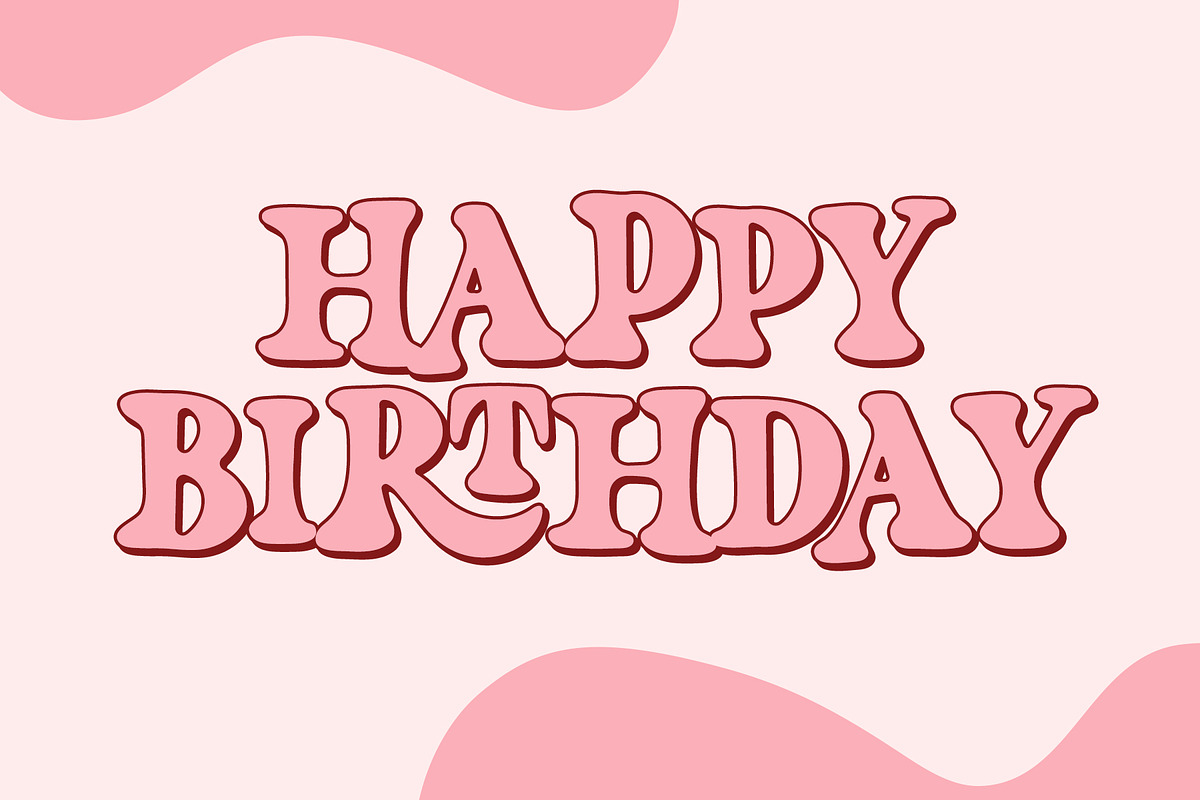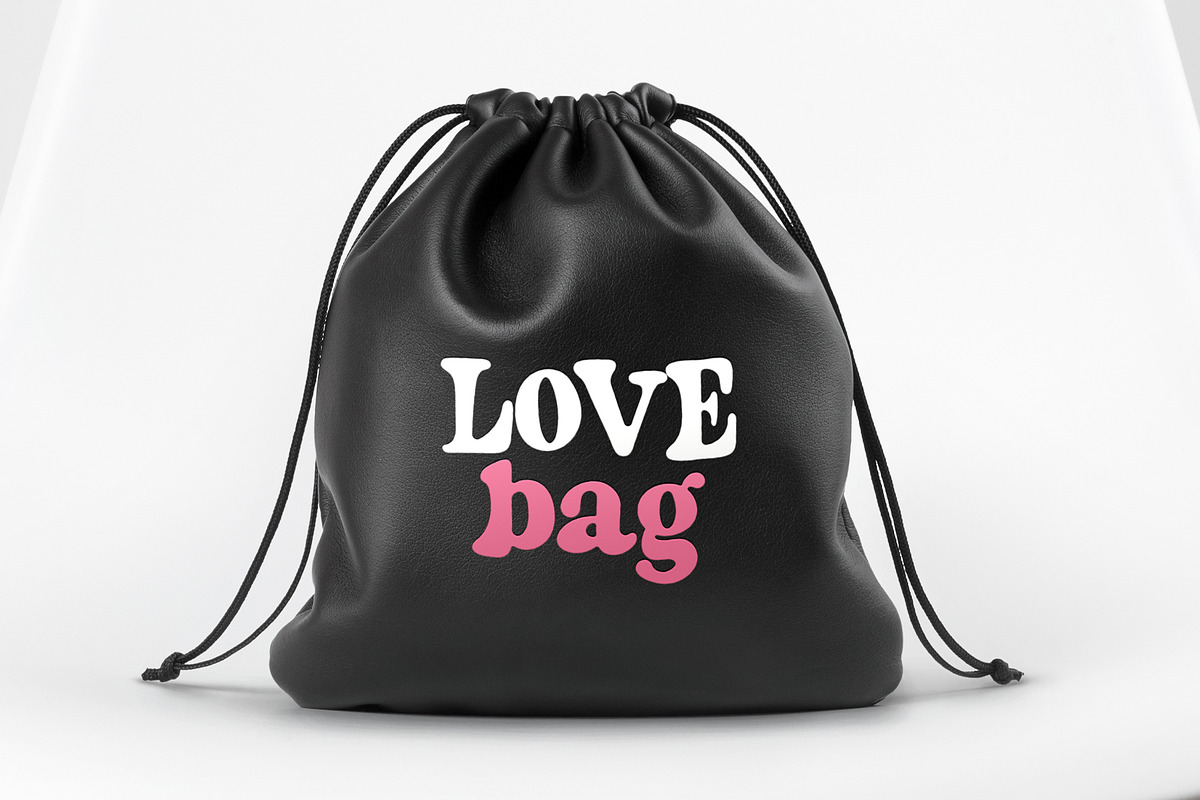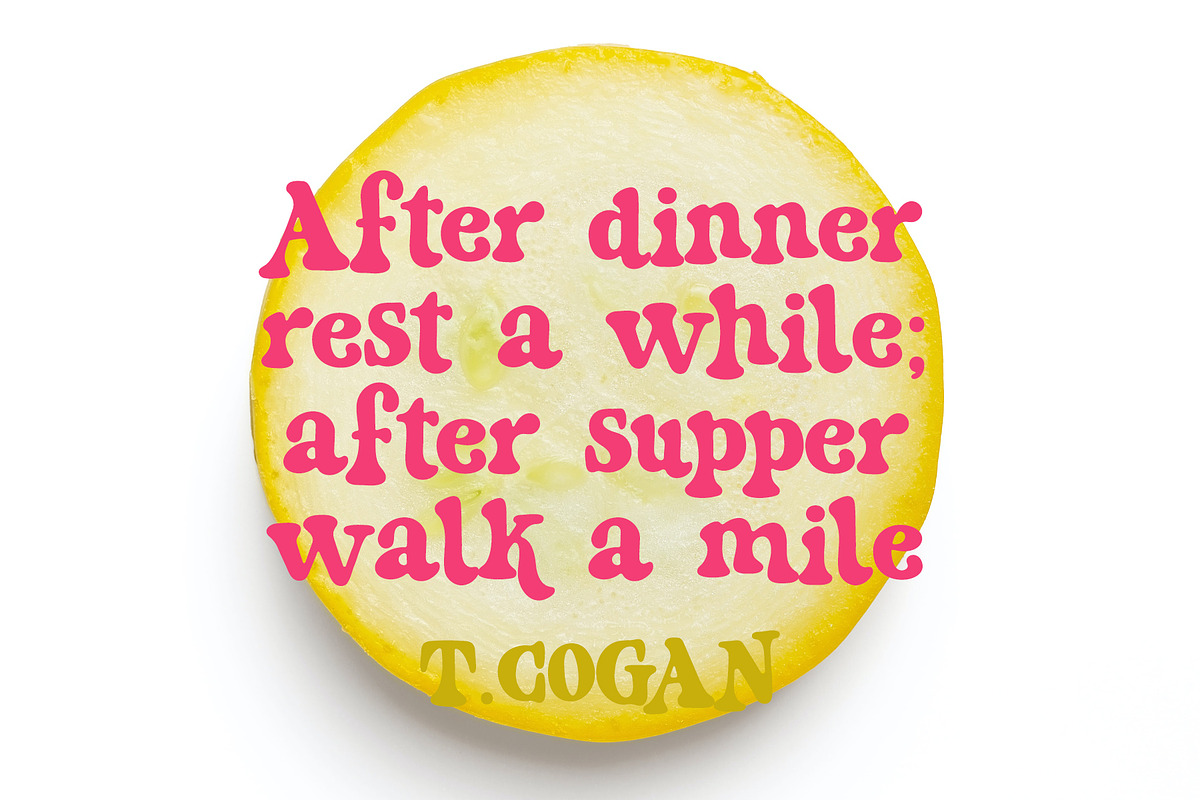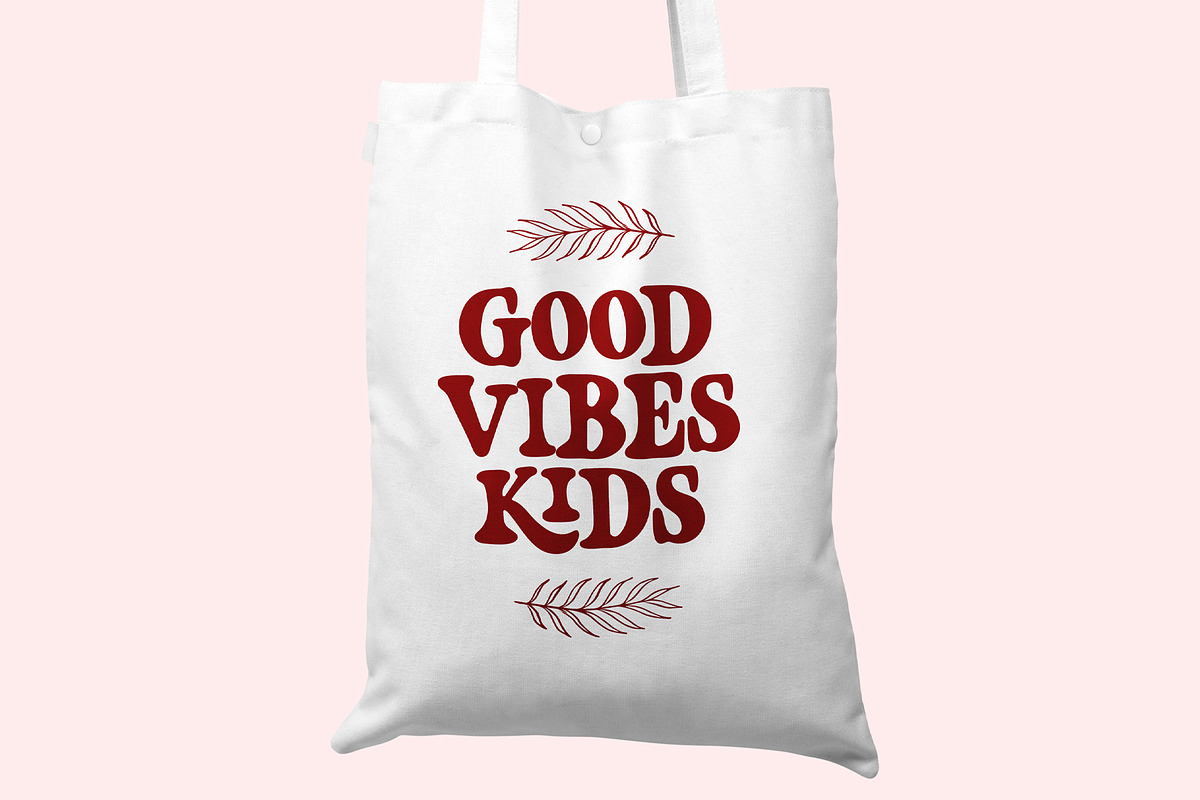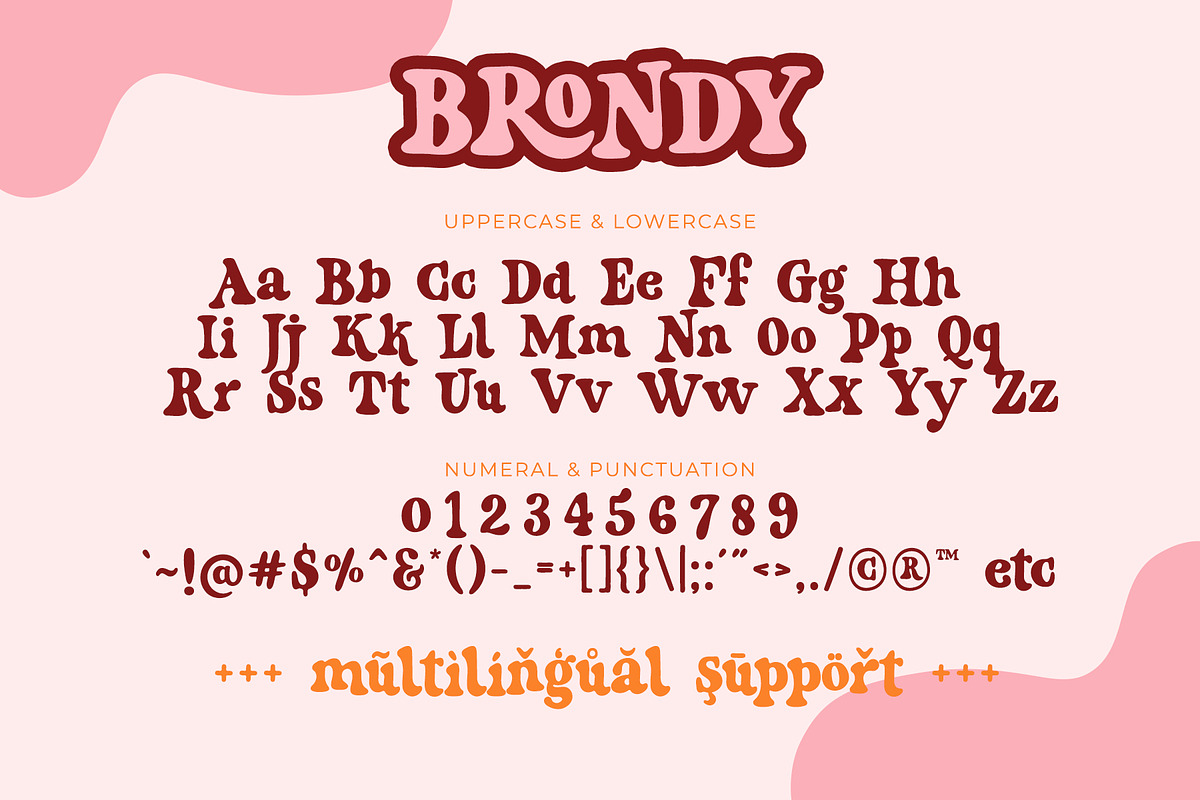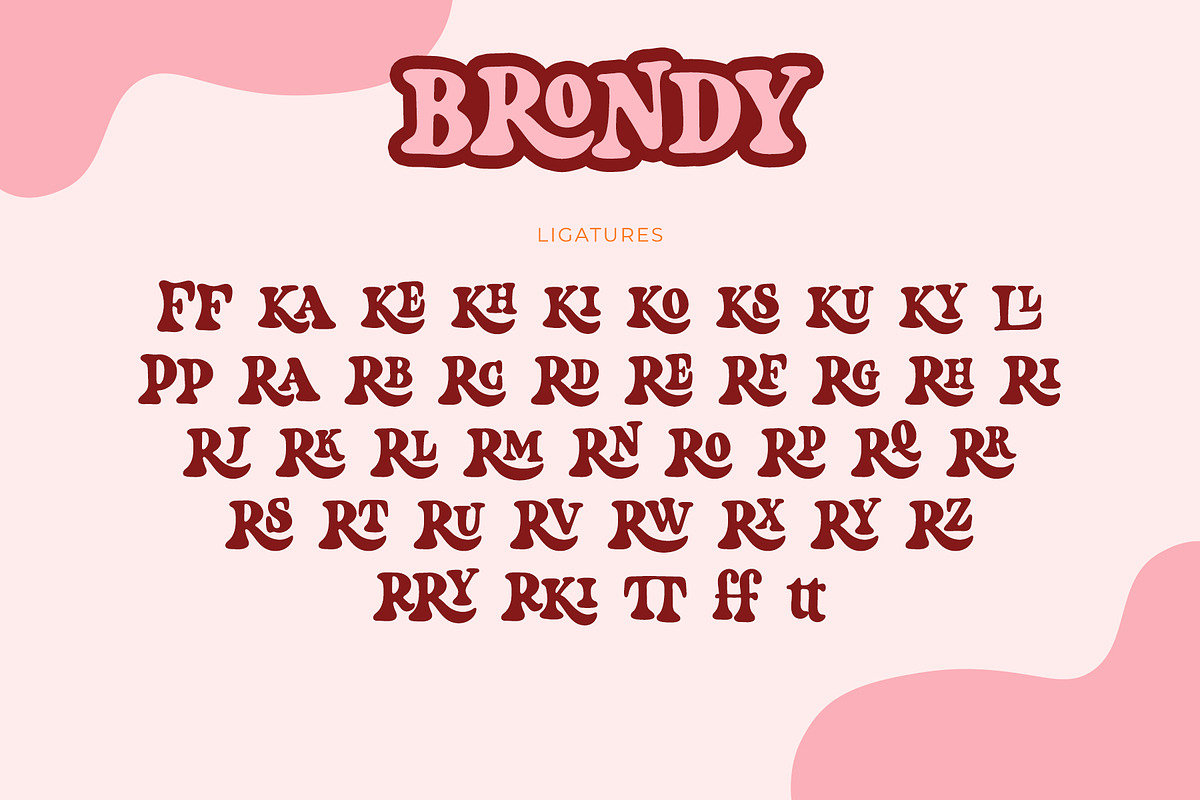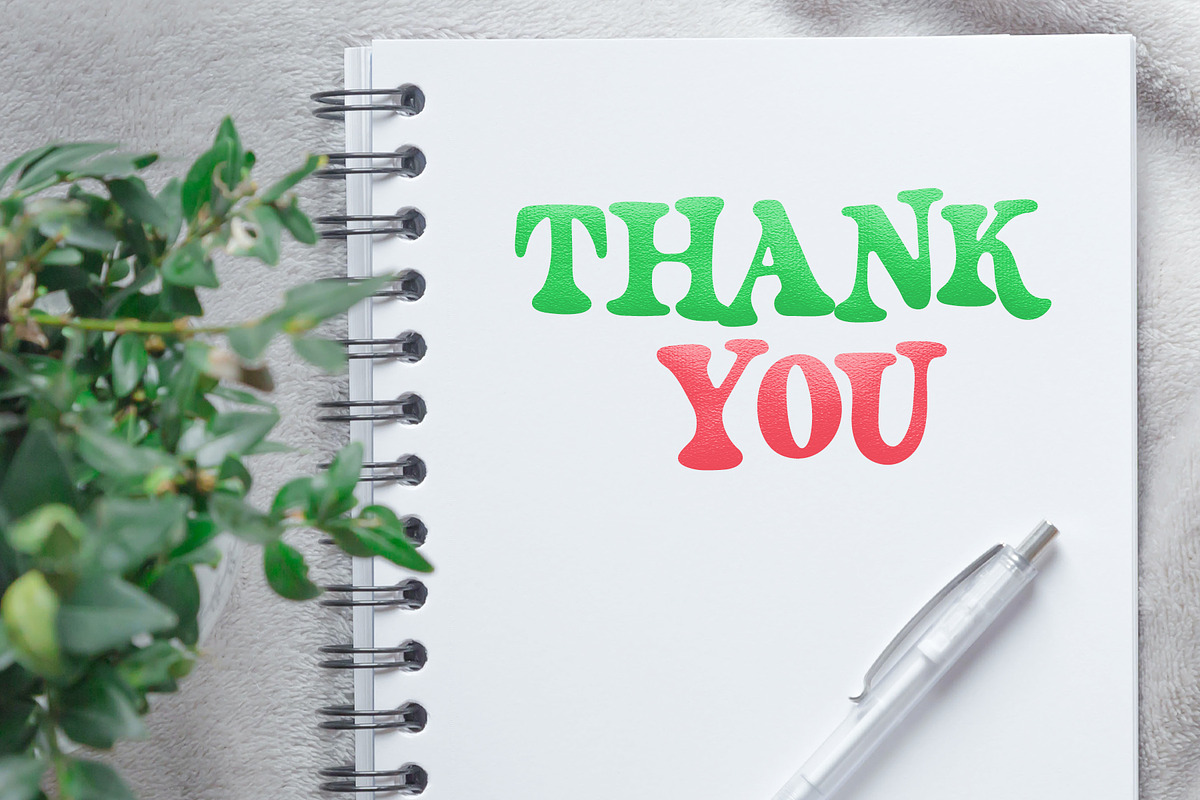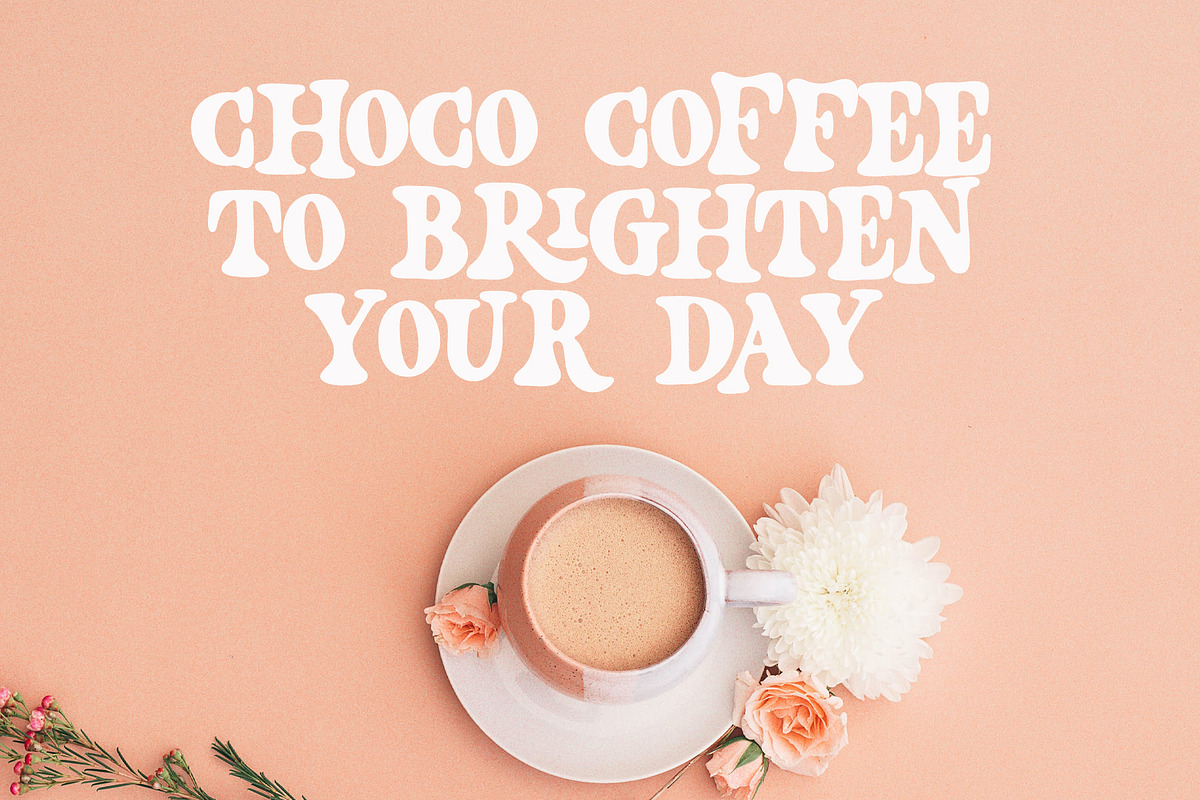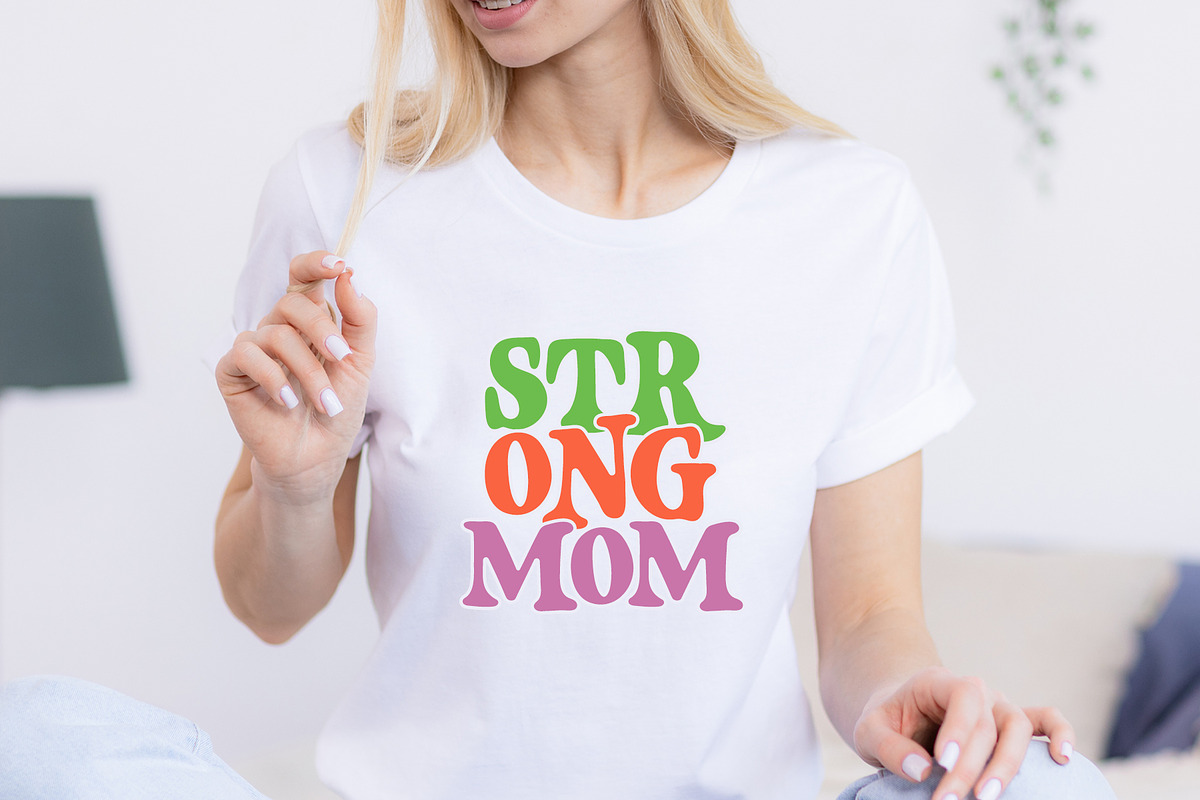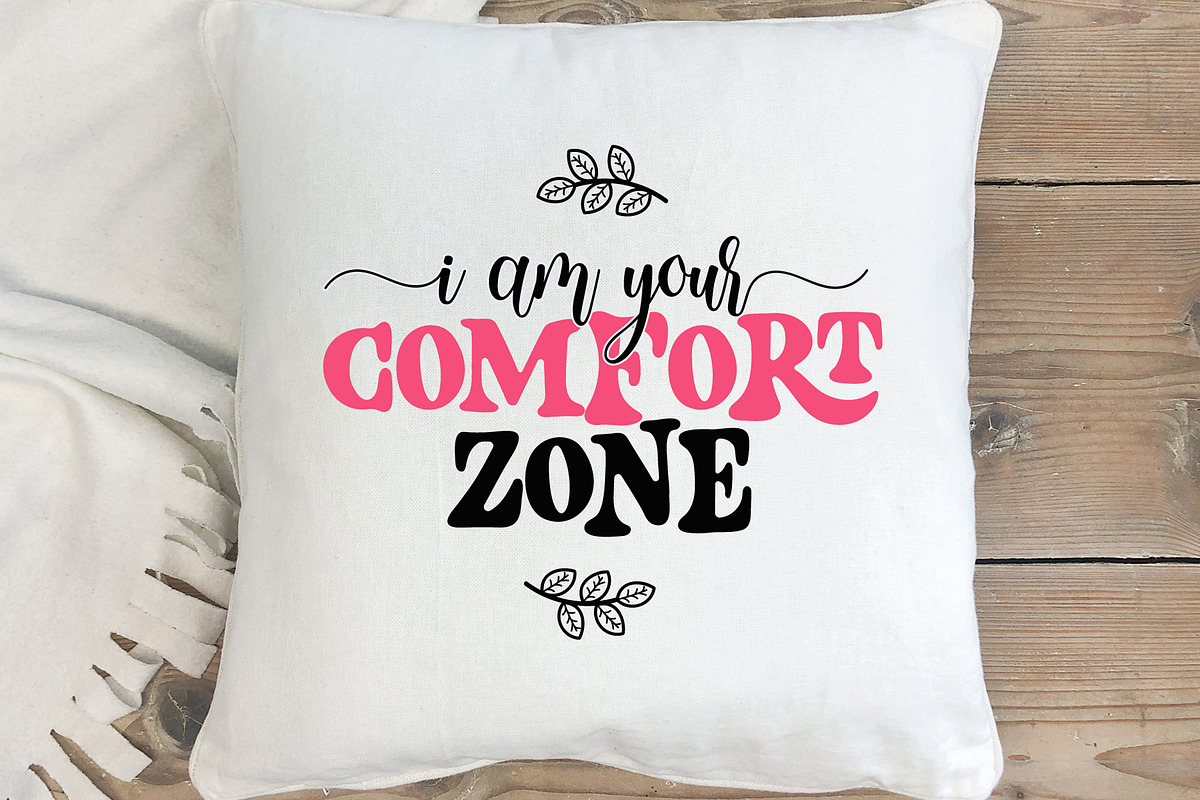
Brondy - Cute Retro Serif Font
Brondy is cute retro serif font. It has vintage, groovy, and fun style.
It has some ligatures for uppercase to give more options in designing.
This font is adorable font for design that needs cute and retro style, such as back to school design, kids design, birthday invitation, summer design, t-shirt design, crafting, sticker, sublimation, and many more.
- Most Multilingual Accent